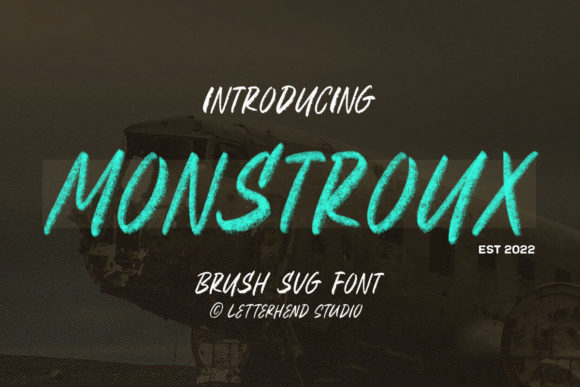
Introducing Monstroux Font, the king of fonts when it comes to crafting the perfect report title. Experience your words come alive, leaving an enduring impression on your readers. With its bold, confident strokes, Monstroux commands attention, making your titles the centerpiece of any document.
Step into a world of creativity and unleash your imagination. Monstroux isn't just a font; it's a statement, a testament to your unique style and perspective. It's the perfect companion for designers, marketers, and anyone who wants to make a lasting impact with their words.
Imagine your report titles captivating your audience, grabbing their attention from the very first glance. Monstroux Font isn't just a font; it's a tool to elevate your ideas, setting them apart from the ordinary and leaving a lasting legacy in the minds of those who read your words.
Whether you're creating a report, a presentation, or a marketing campaign, Monstroux Font is your trusted ally, delivering your message with power and charisma. Its unique brushed texture adds a touch of artistic flair, turning every report title into a miniature masterpiece.
Get ready to leave your mark and be remembered for your exceptional communication. With Monstroux Font, you'll create report titles that inspire, intrigue, and captivate. Grab your copy today and become a master of visual storytelling, leaving a trail of unforgettable impressions wherever your words appear.